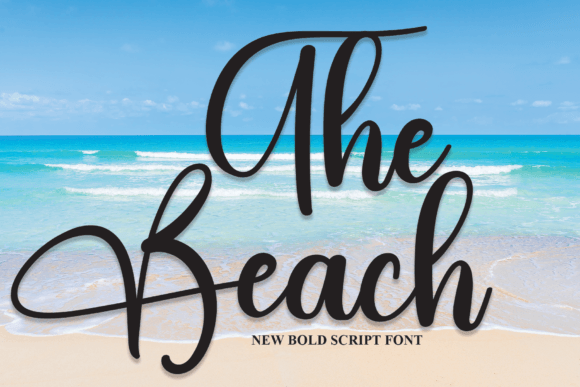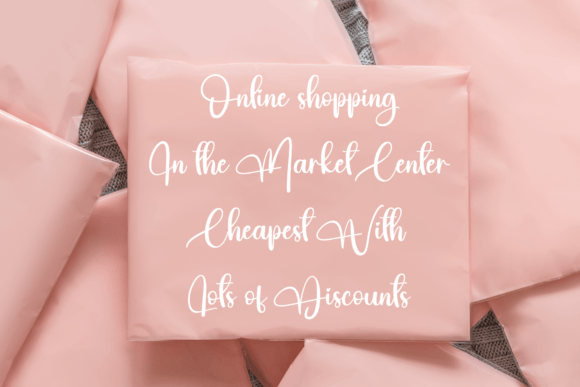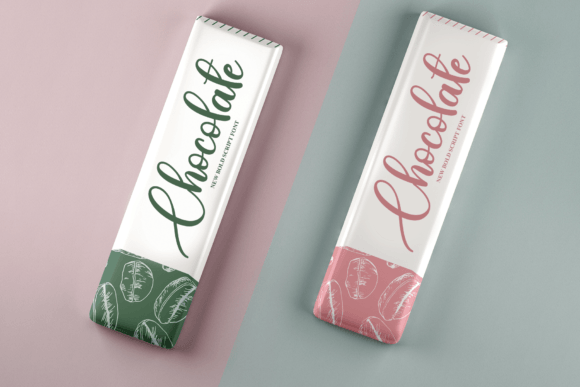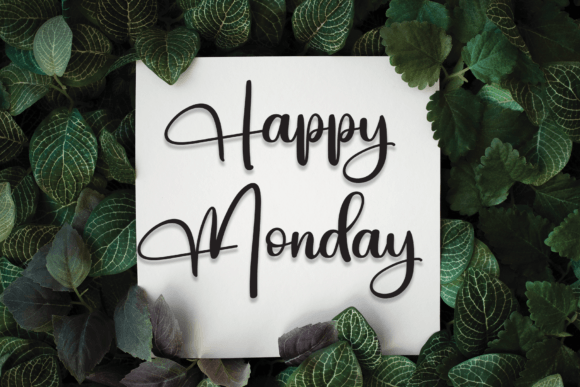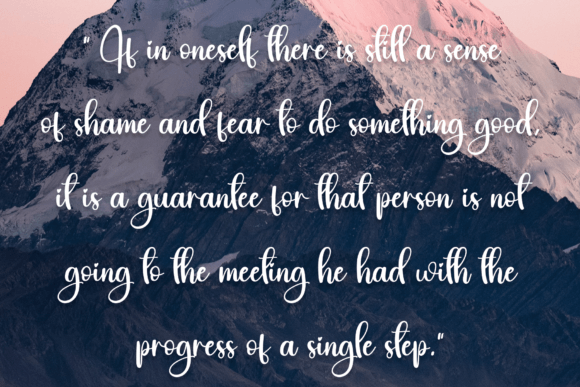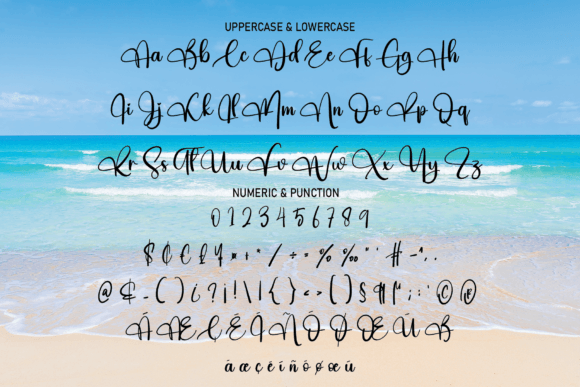
About The Beach Font
The Beach Font Download is a bold and thick handwritten typeface designed to bring fun, playfulness, and creativity into your projects. With its chubby shapes and strong presence, this font instantly grabs attention and sets a cheerful tone. Whether you’re creating playful branding, vibrant packaging, or eye-catching social media posts, The Beach Font makes every design stand out.
This typeface is perfect for designers who want to combine boldness with a friendly vibe. Its rounded edges and thick strokes make it versatile and suitable for both print and digital media.
Features of The Beach Font
When you choose the Beach Font Download, you get a font that blends creativity with readability. Key features include:
Bold and chubby handwritten style
Strong legibility with a playful personality
Perfect for both small and large text layouts
Works well in modern branding and product packaging
Designed to capture attention instantly
Best Uses for The Beach Font
The Beach Font Download can enhance a wide range of creative applications, such as:
Branding projects – Fun and bold logos that express personality
Packaging design – Ideal for snacks, drinks, kids’ products, and lifestyle brands
Social media graphics – Eye-catching posts that stand out in feeds
Event promotions – Posters, flyers, and banners with a playful look
DIY projects and crafts – Add a cheerful handwritten touch to personal creations
Children’s designs – Books, invitations, or clothing tags that need a friendly feel
Why Choose The Beach Font
The Beach Font Download is not just another bold typeface—it’s a tool for creativity. Its thick, rounded design conveys fun and friendliness, making it ideal for businesses or creators who want their brand to appear approachable and joyful.
Unlike standard bold fonts, The Beach has a unique chubby style that makes it highly recognizable. Designers love it for its flexibility, whether they are crafting digital graphics, print ads, or playful logos.
The Beach Font Download is a bold, playful, and creative typeface that brings energy to every design. Its chubby and friendly look ensures it will always grab attention while keeping your designs approachable and fun. Perfect for branding, packaging, social media, and personal projects, The Beach is a must-have addition to your font library.